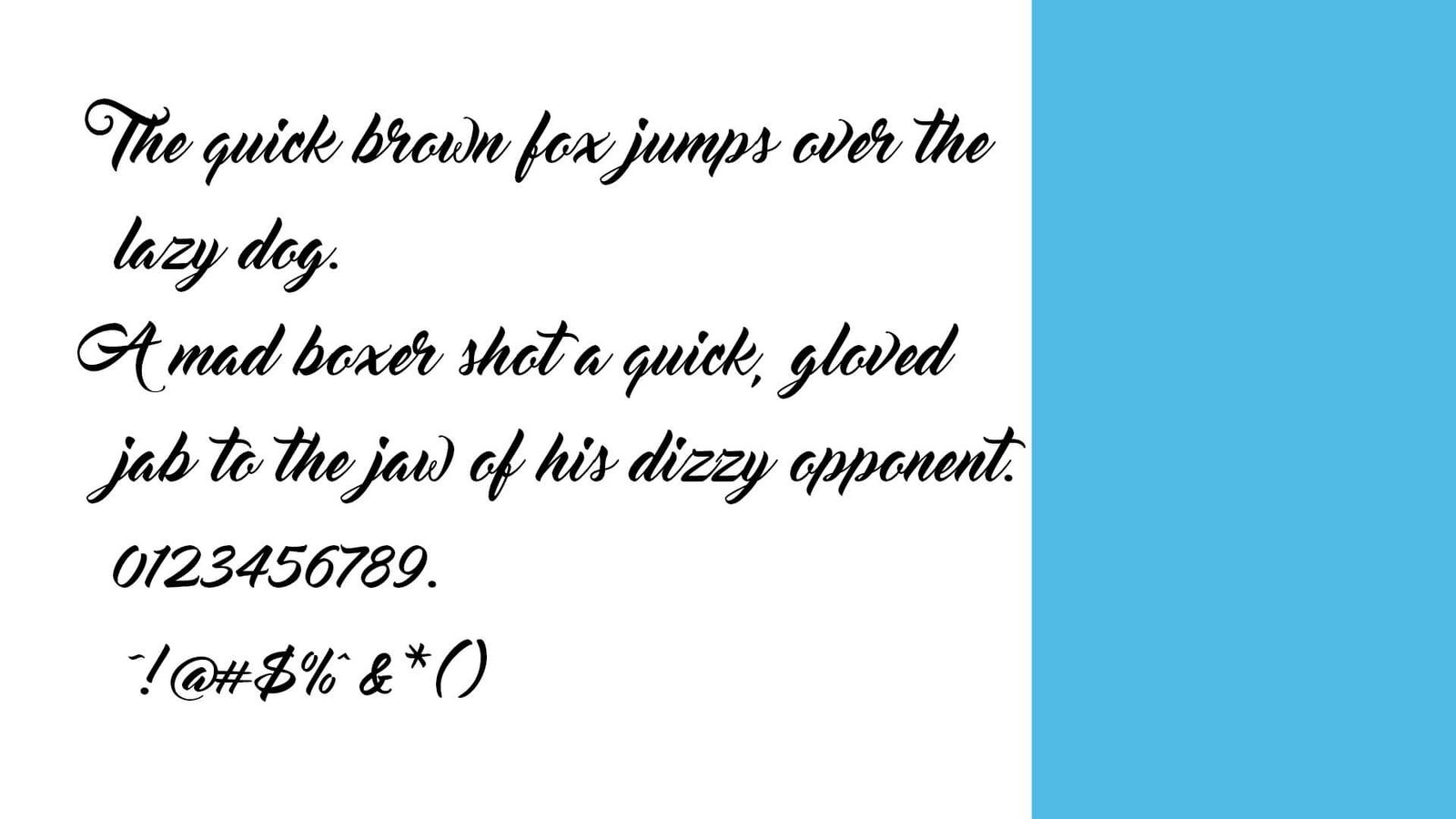
We will be presenting a new font from the Script Typeface family known as Master of Break Font. Created in 2016 by the renowned typefaces foundry StereoType, this font has been widely utilized in different design industries since its launch.
| Name | Master of Break Font |
| Designer | StereoType |